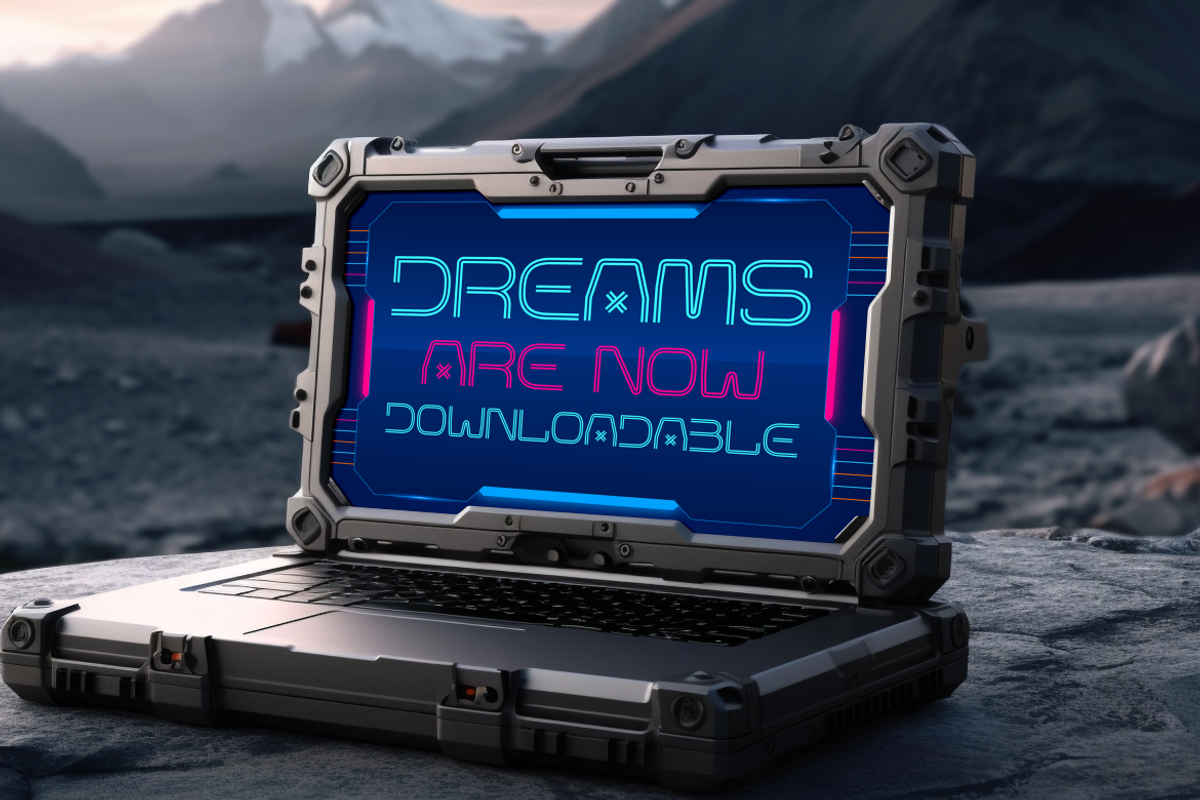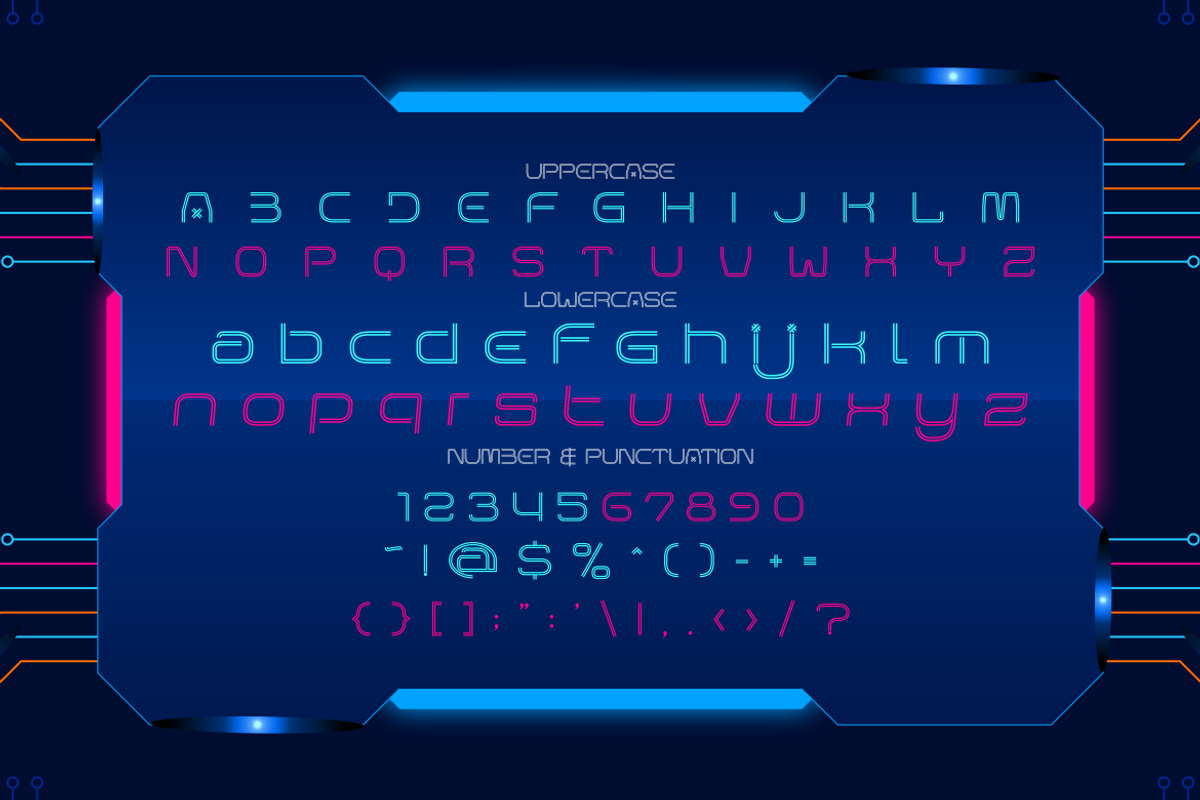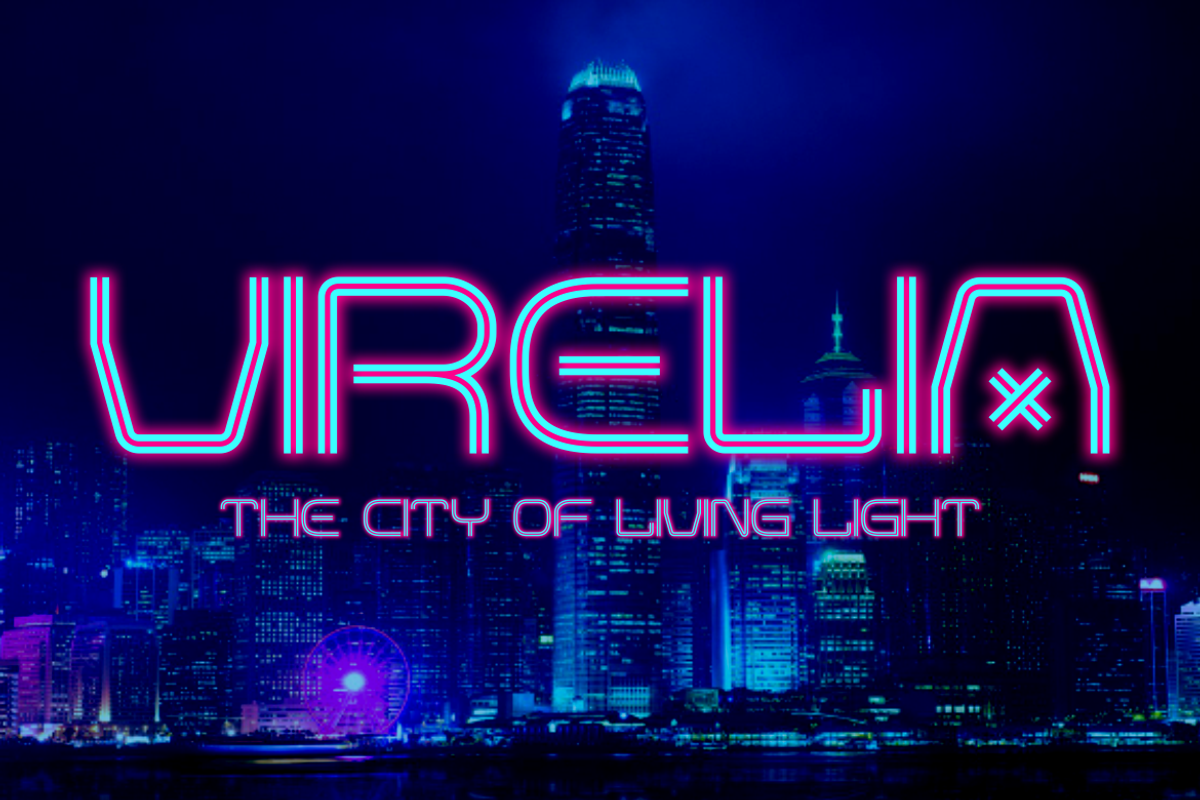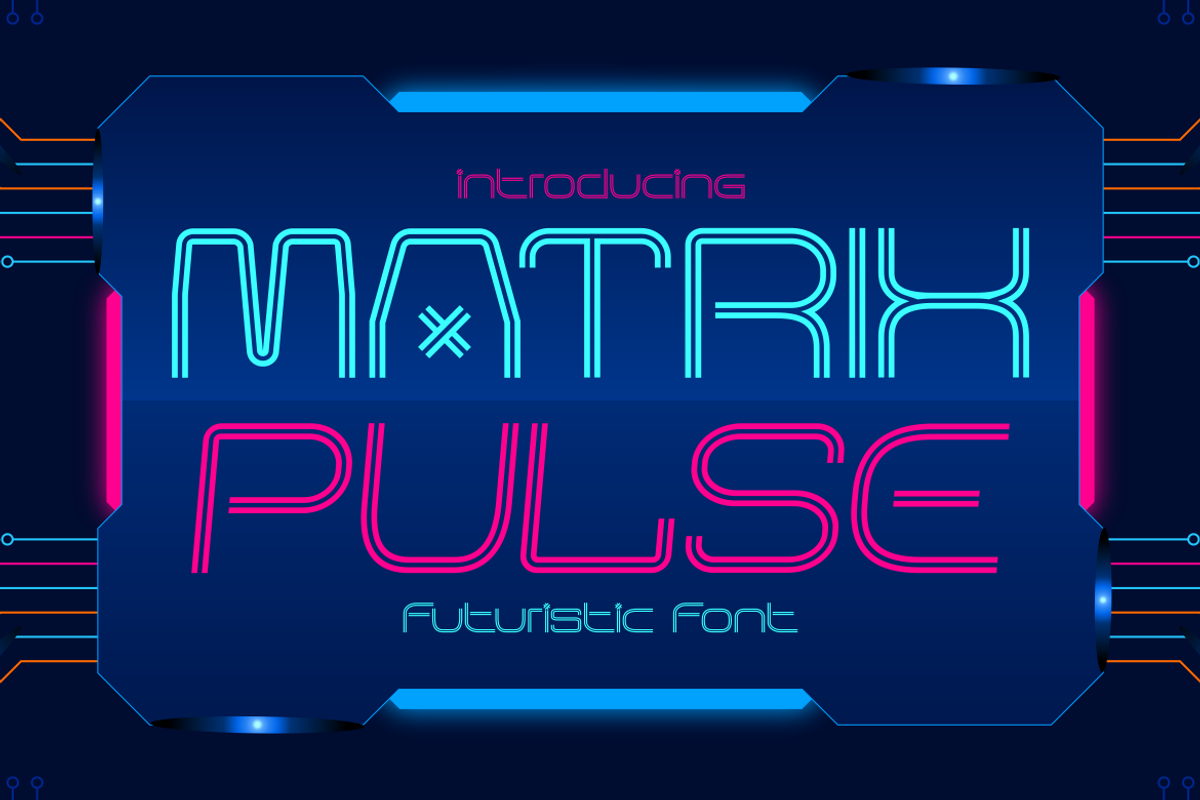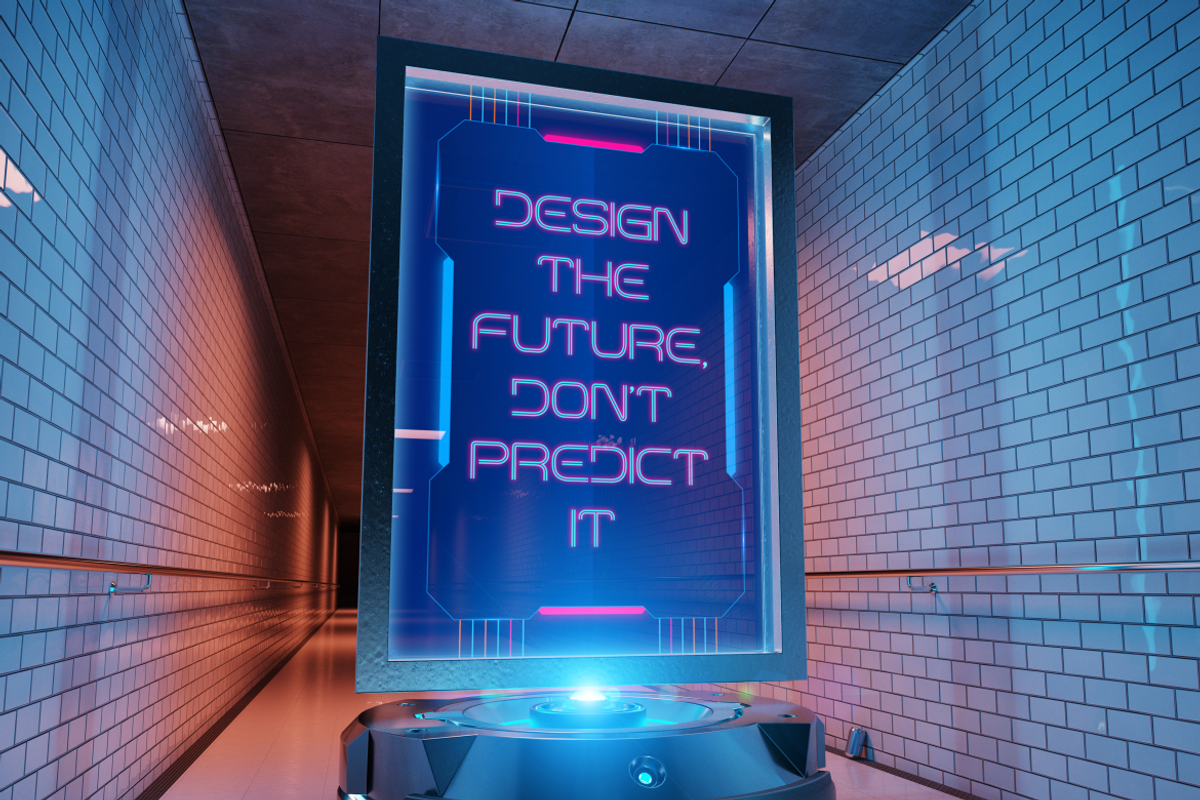
Matrix Pulse Futuristic Font
Matrix Pulse – Futuristic Font is a bold typeface crafted to embody the vibrant aesthetic of cyberpunk culture and digital futurism. Each letter is drawn with clean geometric lines and accented by neon strokes, creating a glowing illusion that feels alive on any design. The font style merges modern techno shapes with retro sci-fi vibes, giving a balance between futuristic minimalism and nostalgic arcade charm. The uppercase and lowercase letters share a consistent neon rhythm, while numbers and punctuation extend its usability across digital and print projects.
This font works perfectly for logos, posters, movie titles, game interfaces, album covers, packaging, and tech branding. Its glowing layout adds intensity to futuristic-themed projects, making text feel dynamic and immersive. Whether you’re designing for a cyber cityscape poster, a nightclub flyer, or a sci-fi movie cover, Matrix Pulse brings modern edge and high-tech appeal. With its glowing strokes and bold techno curves, this font ensures your design captures the pulse of the future.